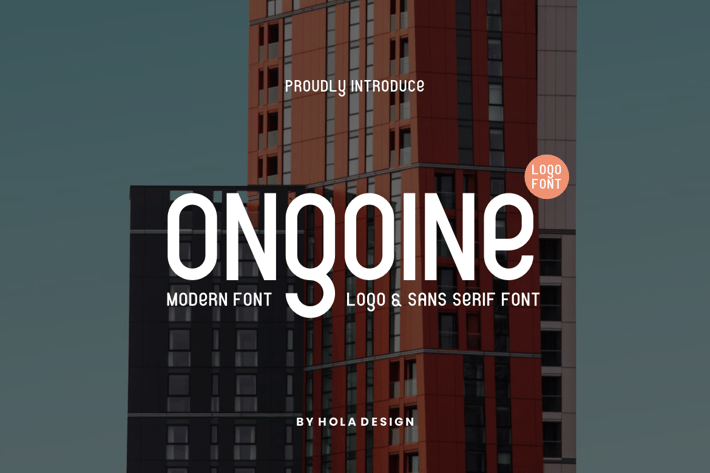
Ongoine - Sans Serif Logo Font
Ongoine - Modern Sans Serif Font Font is unique . Ready to use for your design like labeling, movie sceen, poster, movie title, gigs, album covers, logos, and much more.